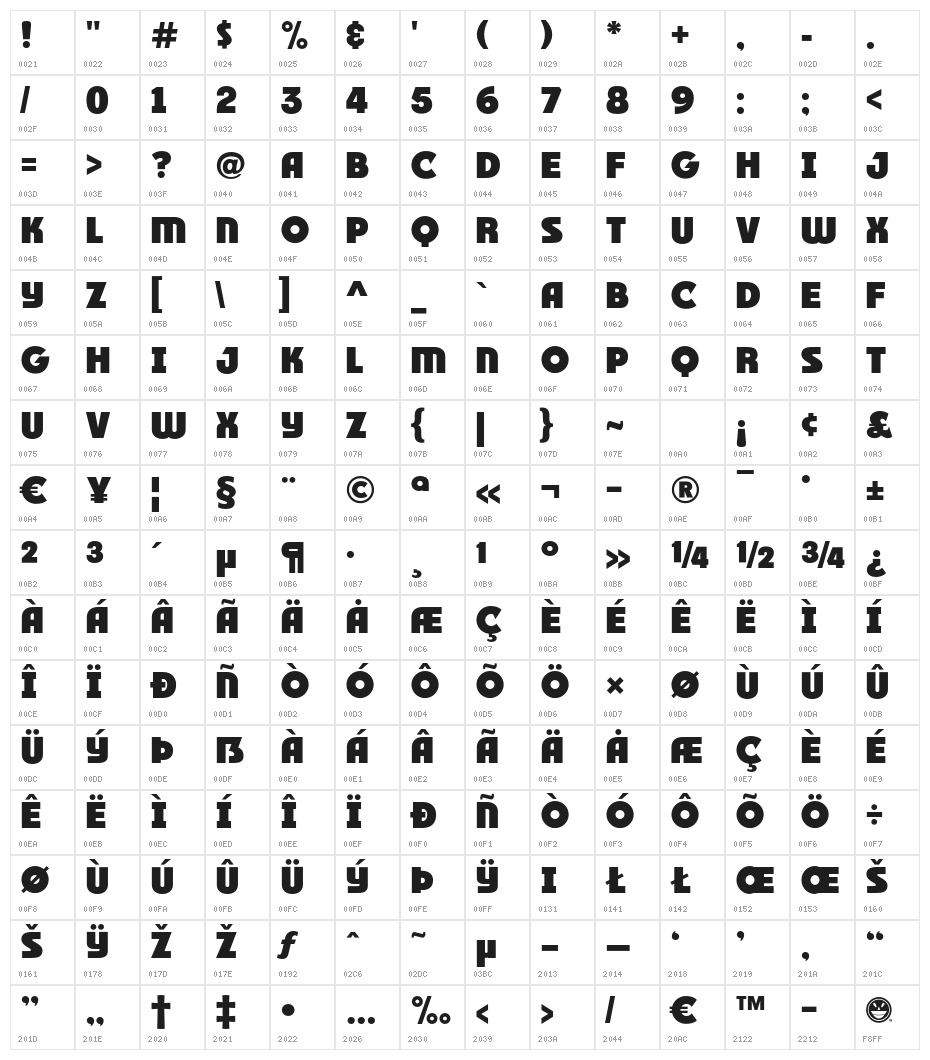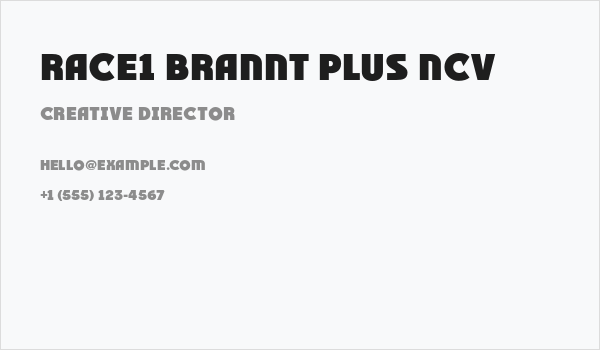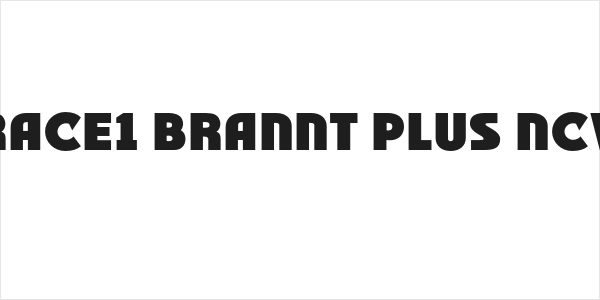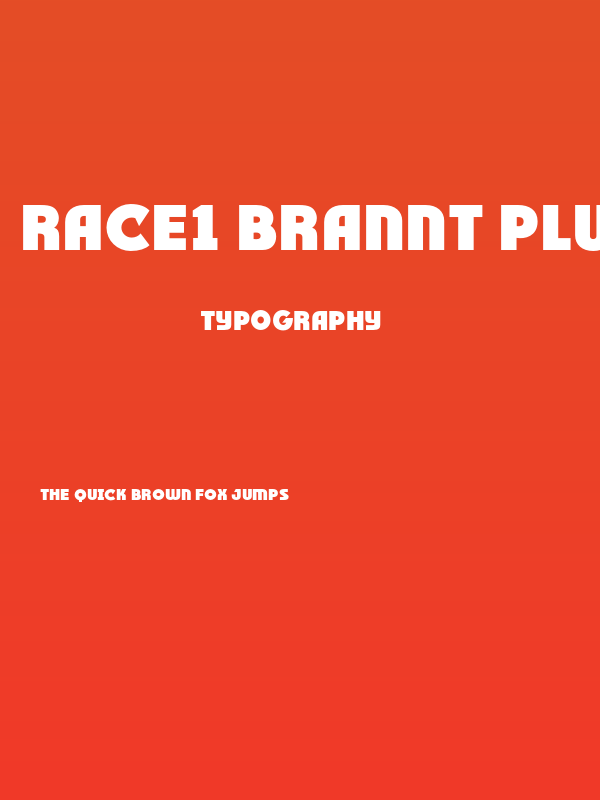
RACE1 Brannt Plus NCV Font
RACE1 Brannt Plus NCV Description
This font features bold, geometric letterforms with a strong presence. The characters are uniformly thick, creating a sense of stability and impact. The rounded edges and consistent stroke width give it a modern and approachable feel. The uppercase and lowercase letters maintain a cohesive style, with the lowercase mirroring the boldness of the uppercase. Numbers and special characters are equally robust, ensuring readability and versatility. The overall design is clean and uncluttered, making it suitable for a variety of applications where a strong visual statement is needed.
| Proposed Projects | Ideal for branding, headlines, posters, and any project requiring a strong visual impact. |